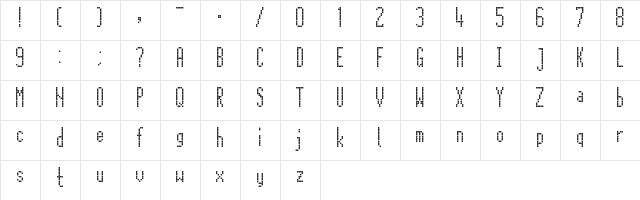
Citaro Zij DS Regular
| Designer | Jeffrey Visser |
Design Context for Citaro Zij DS Typeface
Citaro Zij DS is a composed and adaptable typeface that performs quietly and consistently across a wide range of design contexts.